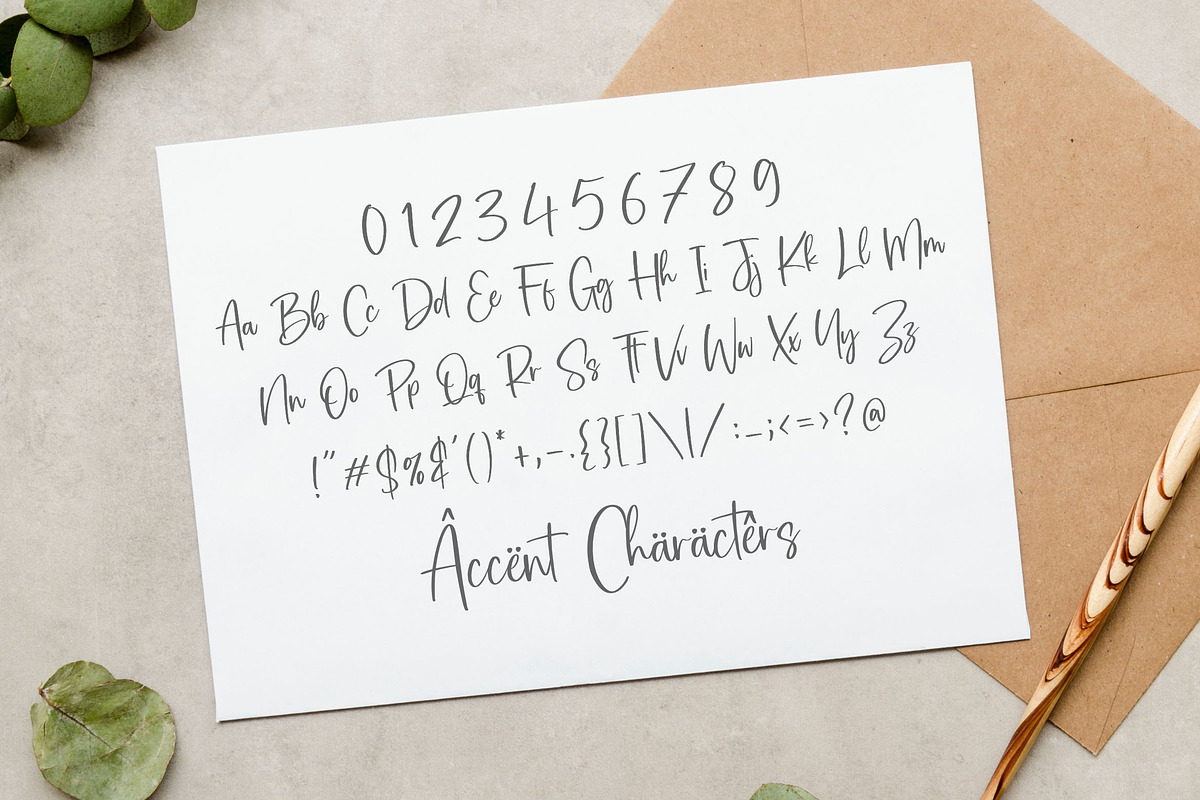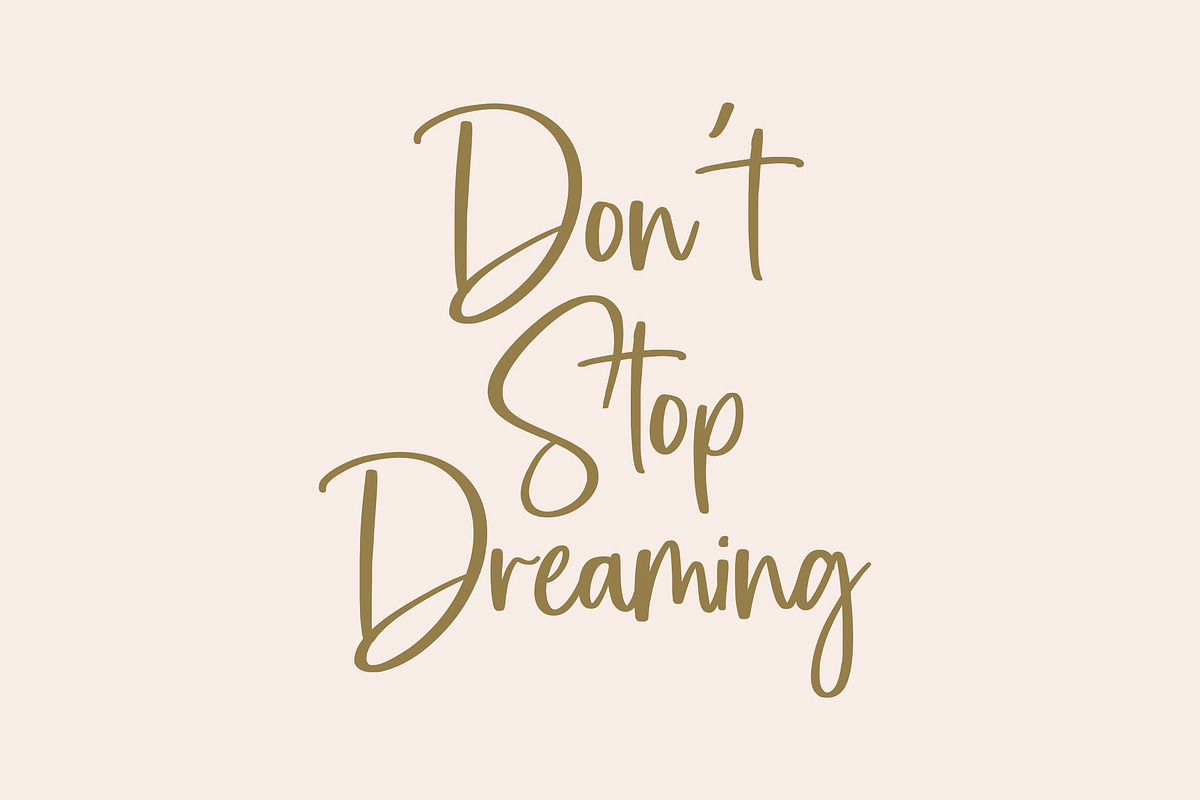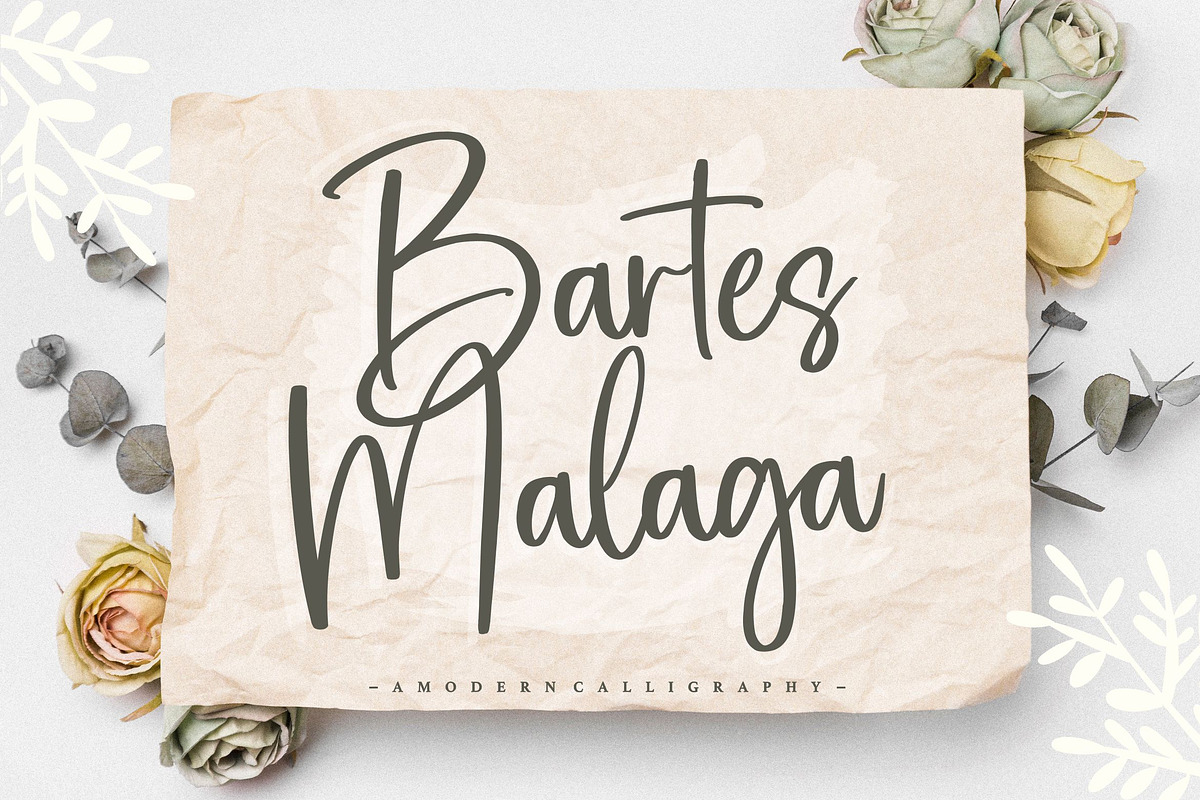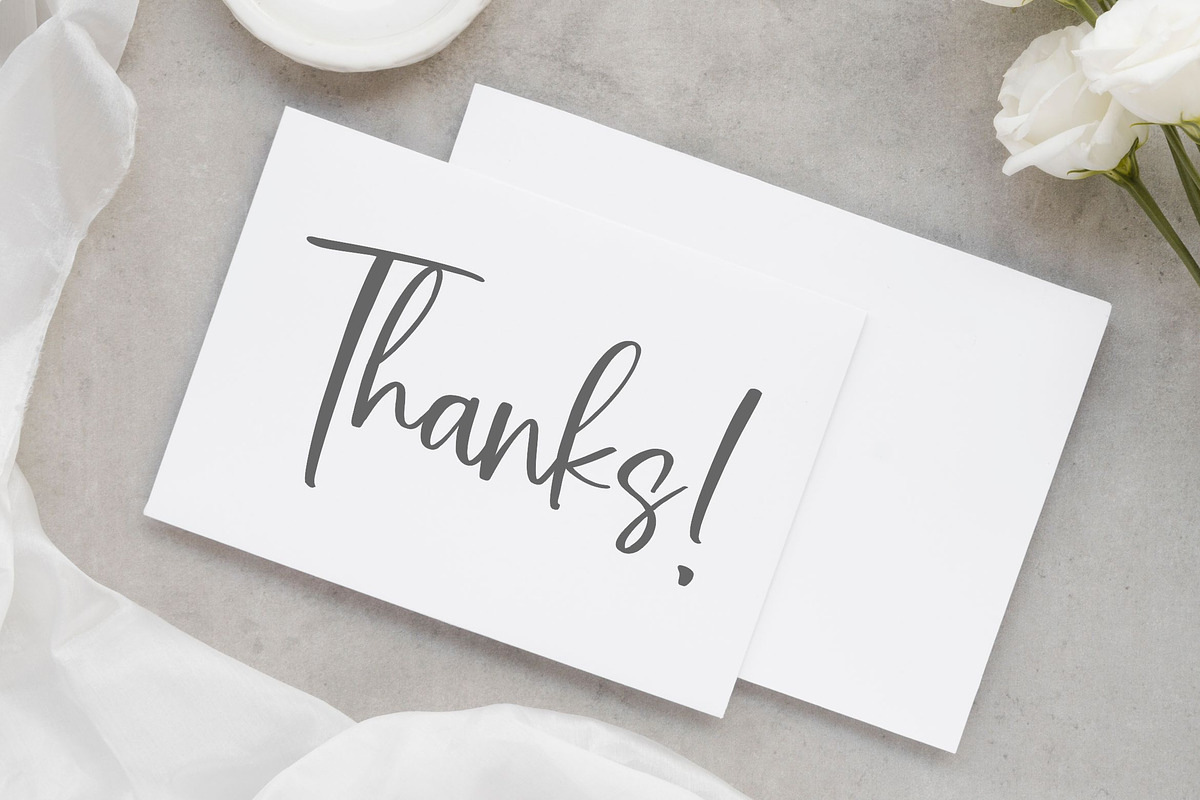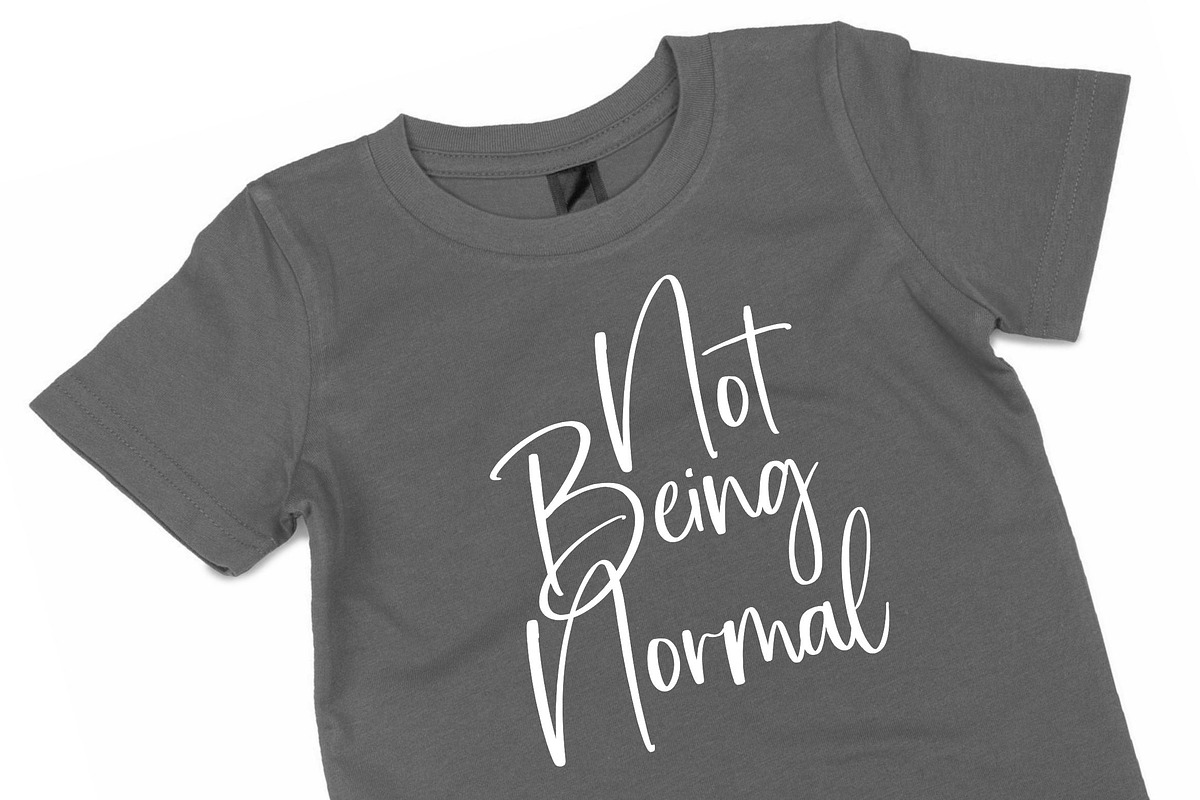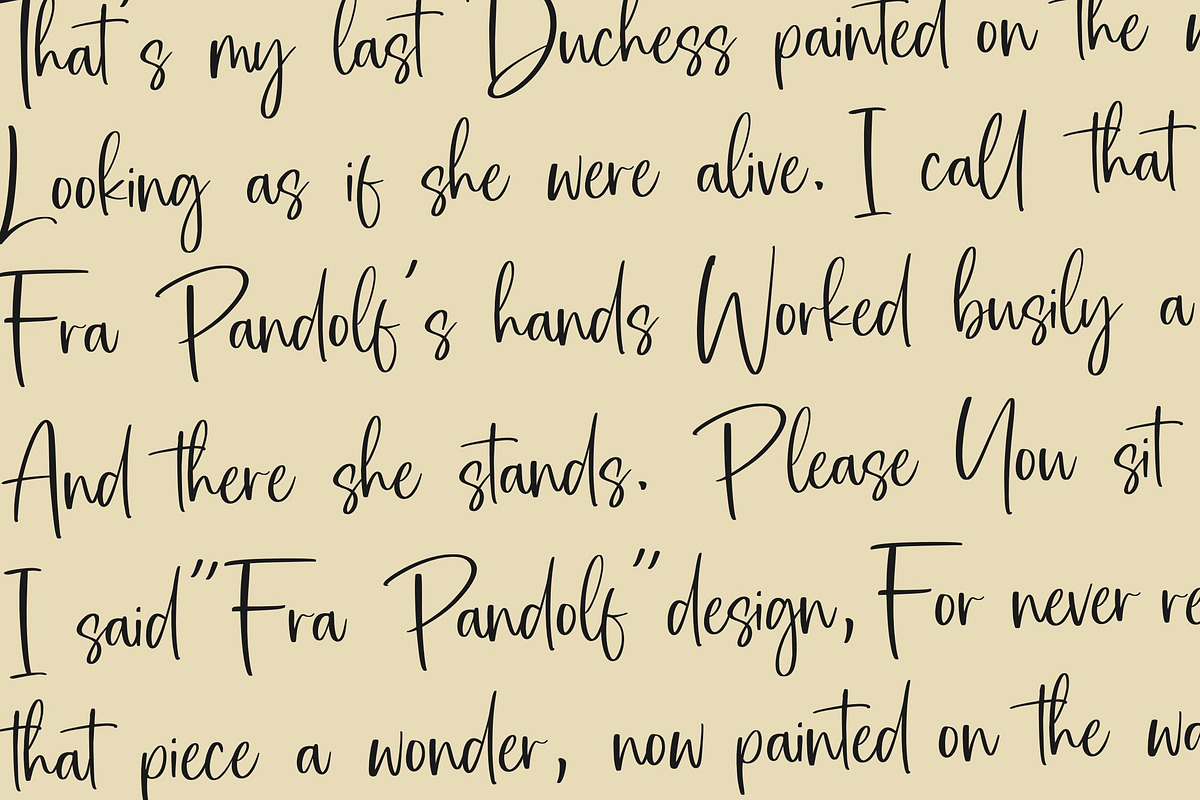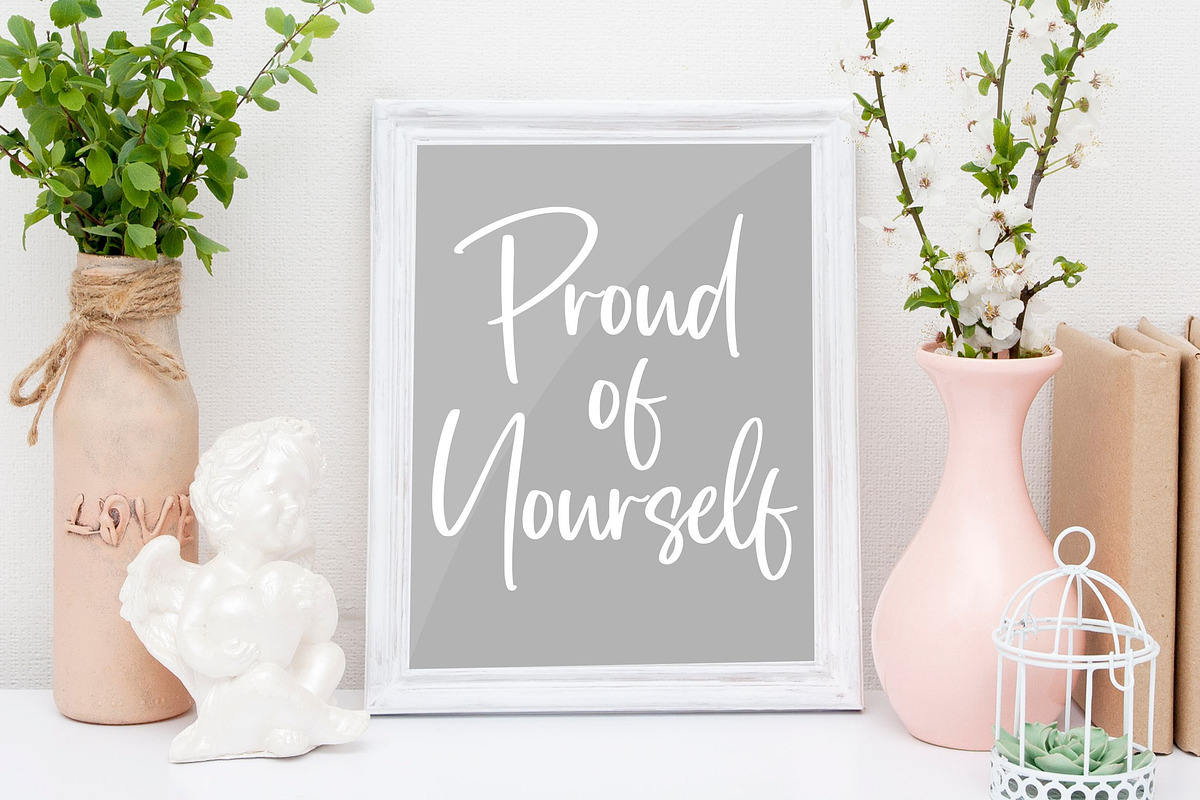
Bartes Malaga - Modern Calligraphy
Proudly Present, Bartes Malaga Font
Bartes Malaga is a flowing handwritten font, described by an elegant touch, perfect for your favorite projects. Fall in love with its incredibly distinct and timeless style and use it to create spectacular designs!
- also multilingual support